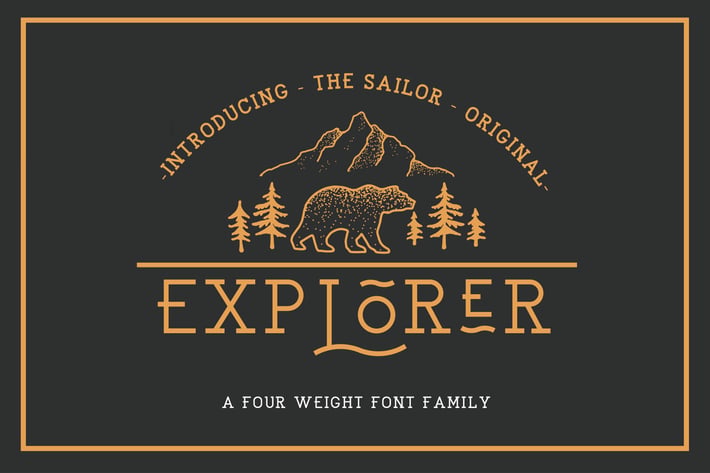
EXPLORER - Sailor Original Typeface
The Sailor Original Font Is a another version of the sailor font. This Original version comes with clean style, modern and simple with Four weight . Perfect for logo designs, headers and small amounts of text. It contains an uppercase alphabet with alternative character, numbers and symbols.
Four weight
Light
Medium
Regular
Bold
Multiple Language supported